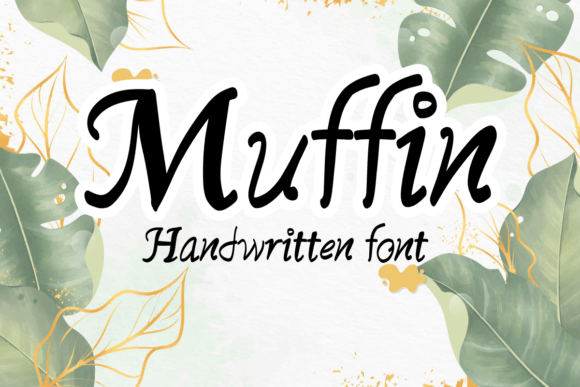
Unleash your inner childlike wonder with Muffin Font, the enchanting handwritten font that captures the essence of playfulness and creativity. Inspired by the whimsical strokes of a child's imagination, Muffin Font is a serif font family that dances across your screen, leaving a trail of joy and inspiration in its wake.
With its playful curves and charming imperfections, Muffin Font adds a touch of whimsy to any project. It's the perfect font for capturing the innocent wonder of a child's world, whether you're writing a heartfelt letter, designing a delightful greeting card, or creating a captivating social media post.
But don't let its playful nature fool you - Muffin Font is a versatile performer that shines in a variety of settings. Its charming personality brings life to banners, adds a personal touch to content, and transforms everyday objects like mugs, cards, and shirts into delightful works of art. Its versatility makes it a must-have font for any designer's toolkit.
With Muffin Font, you can effortlessly craft designs that evoke a sense of nostalgia, warmth, and lightheartedness. Its unique style is sure to leave a lasting impression on your audience, whether you're creating marketing materials, crafting social media posts, or simply jotting down your thoughts in a personal diary.
So why settle for ordinary fonts when you can embrace the captivating charm of Muffin Font? Let your imagination run wild as you explore the endless creative possibilities that await you with this enchanting font. Unleash the child within and embark on a typographic adventure like no other. Download Muffin Font today and let the magic begin!